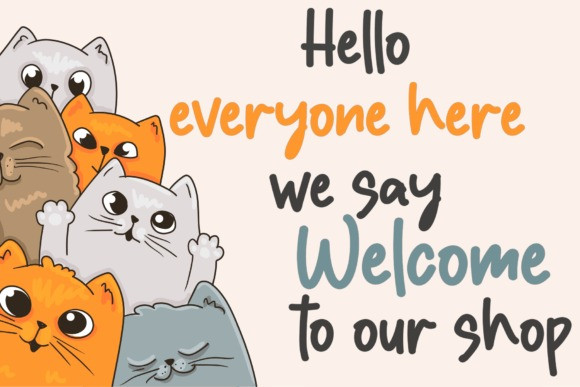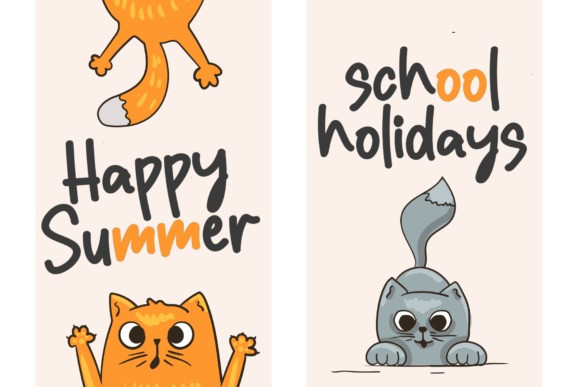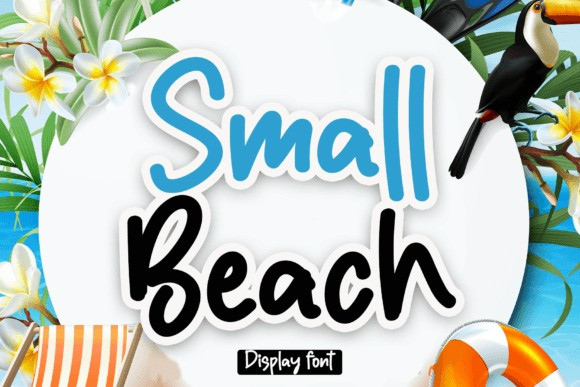
Small Beach Handwriting Font
Small Beach Handwriting Font is a cool and colorful display font. Whether you’re using it for crafts, digital design, presentations, or making greeting cards, this font has the potential to become your favorite go-to font, no matter the occasion.